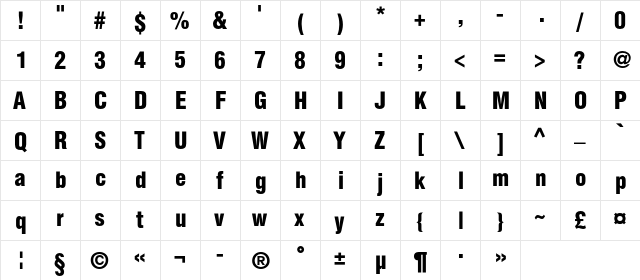
HeliosCondBlackC Regular Font Preview
HeliosCondBlackC Regular
Design Context for HeliosCondBlackC Typeface
HeliosCondBlackC takes a measured approach to typography — its balanced proportions and neutral character make it a reliable workhorse for both digital and print work. Its narrow stance lets it pack a punch even in space-constrained designs.